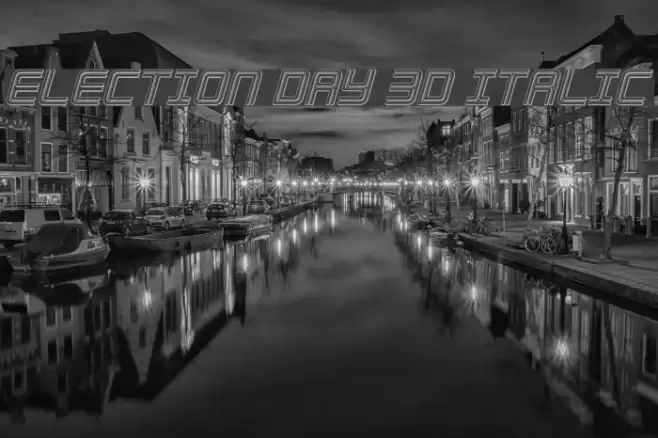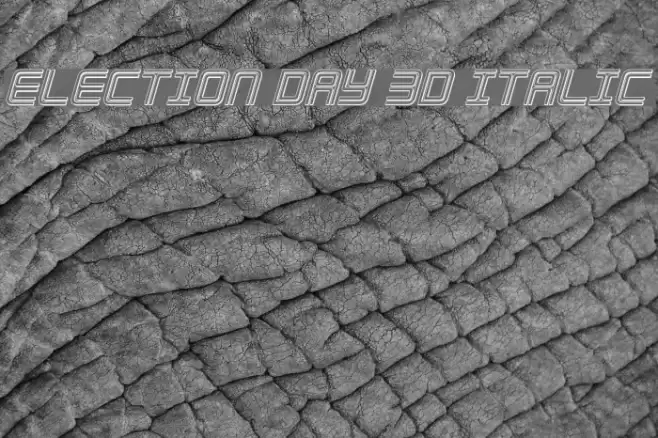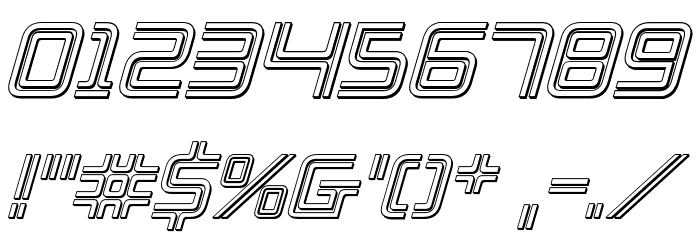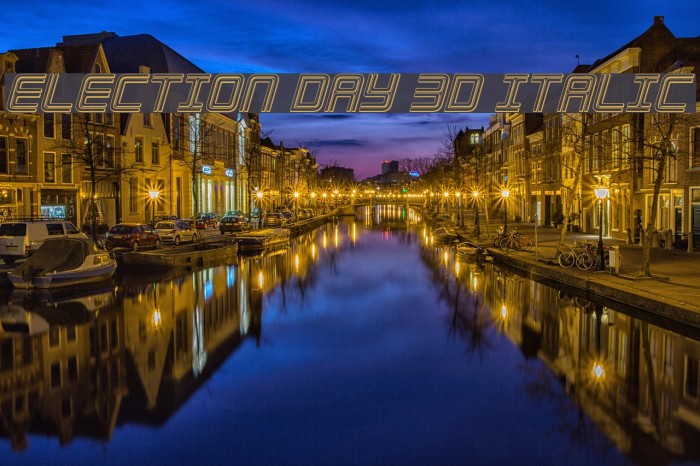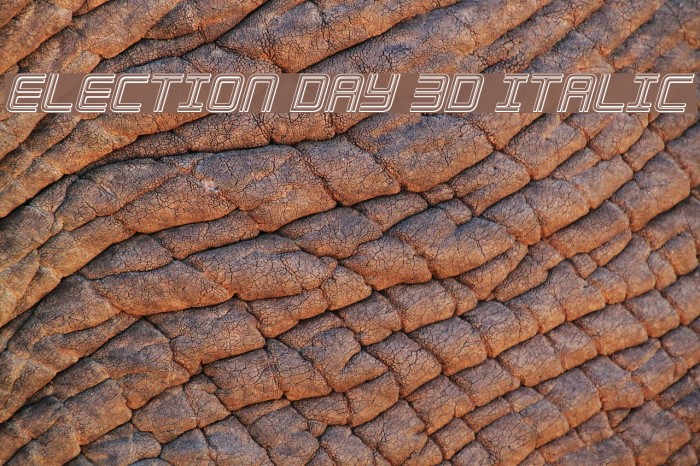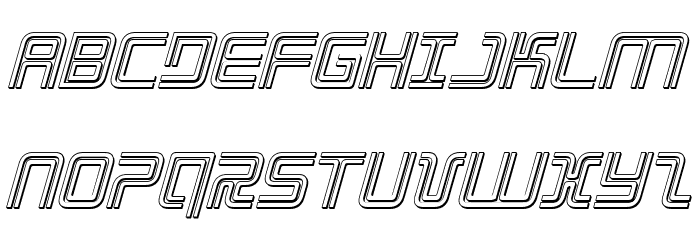
Election Day 3D Italic
This font features a bold, three-dimensional design with an italic slant, creating a dynamic and futuristic appearance. The characters are outlined with multiple layers, giving a sense of depth and movement. The geometric shapes and clean lines contribute to a modern aesthetic, while the italic angle adds a sense of speed and urgency. This style is particularly eye-catching, making it suitable for attention-grabbing headlines or titles. The font maintains consistent proportions across uppercase, lowercase, numbers, and special characters, ensuring readability and uniformity.
A bold, 3D italic font with a futuristic and dynamic style.
- Proposed Projects: Ideal for projects requiring a modern and impactful look, such as tech branding, sci-fi themed designs, posters, and video game titles.